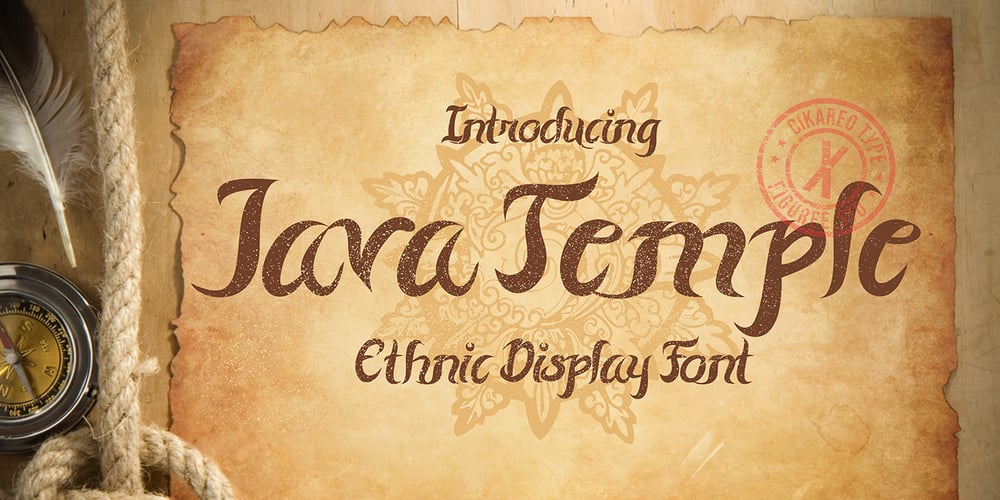
Java Temple Font Family was designed by Sipanji and published by Sipanji21. Java Temple contains 1 styles and family package options. Java Temple is a Display Font that is inspired by the uniqueness of Javanese culture, thus presenting a very dynamic font form that is very suitable for various design purposes, especially with traditional cultural themes with unique and authentic characteristics.